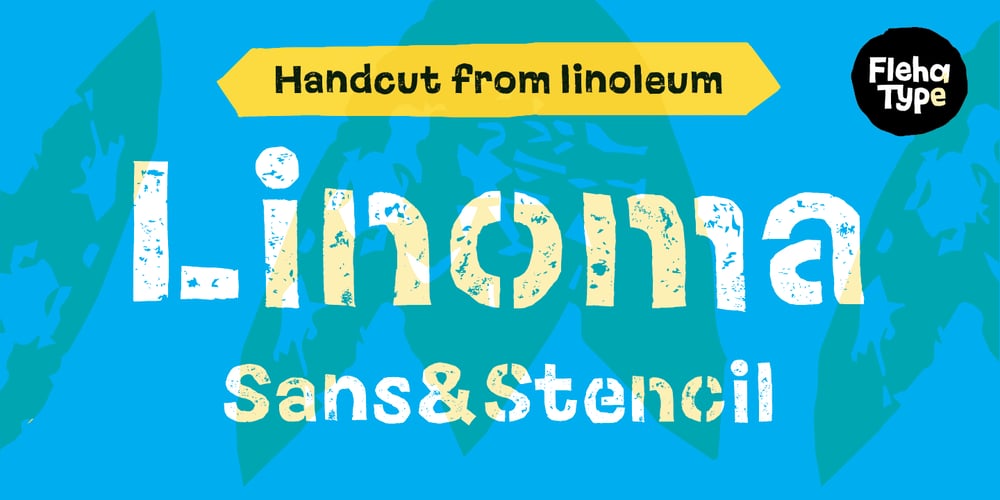
Linoma Font Family was designed by Teja Smrekar and published by FlehaType. Linoma contains 2 styles and family package options. Linoma is a handmade font duo consisting of a sans and a stencil version. Its rough and textured appearance derives from the linocutting technique. Use Linoma Stencil as headline or display font and Linoma Sans when you need text settings in smaller sizes. Linoma is suitable for packaging, books, magazines, products and branding projects. It supports most of Central European and Easter European languages.